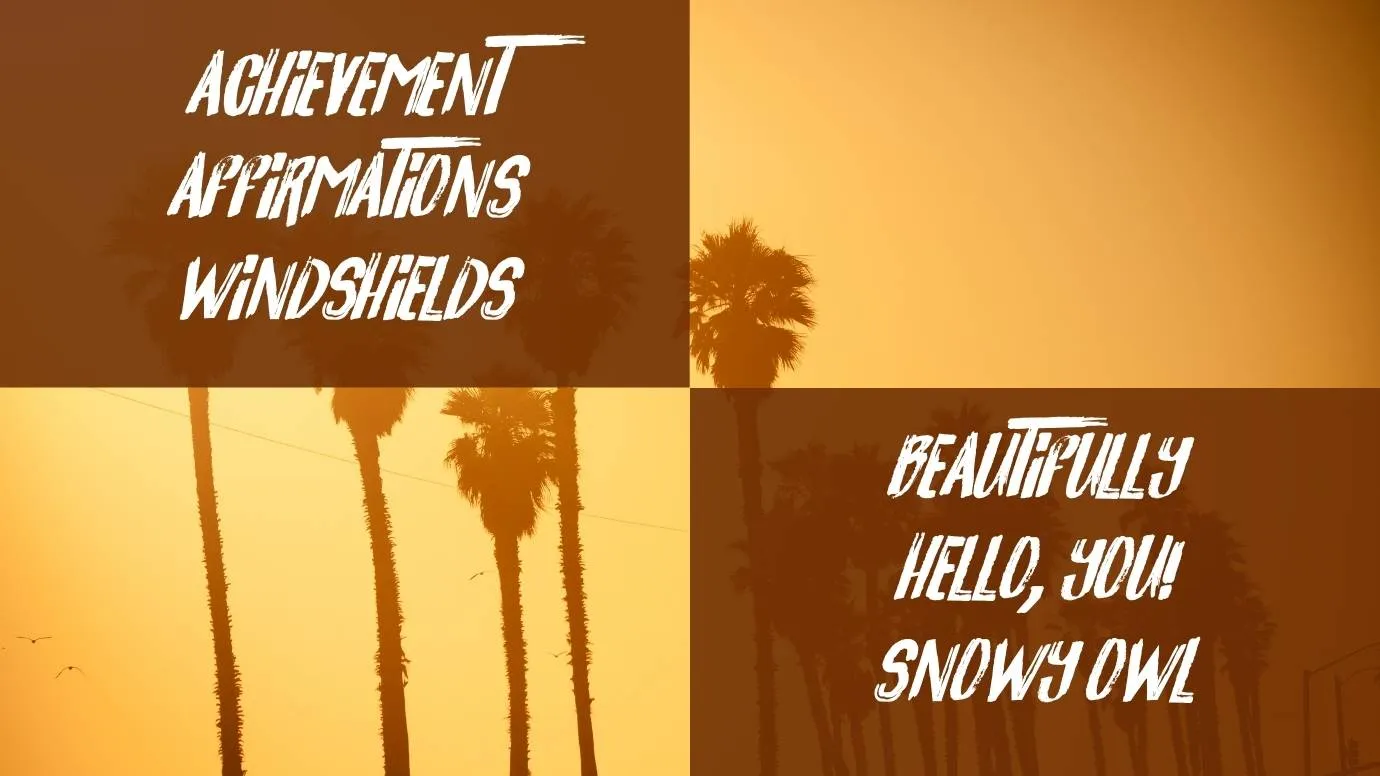
California Font is a member of the Script family, the style of this texture is brush and unique. This is a font that was designed in the US by Leonard Posavec between 1996-2004. It is available to download for free after purchasing the original design.
This font has quite unique punctuation, with brackets curving into shapes of stars or circles instead o being straight lines. There are numerous other features to this texture including different weights and weights, and capital letters in lower case as like Edo SZ Font.
This is a beautiful font that is very popular in the California area. This font guide will explain everything you need to know about this font, including how to use it!
This typeface is a type of font that has many uses, including online and print. It is very versatile and can be used for many purposes, such as writing headings, body paragraphs and even decorating images. This font has an interesting design that is well suited to headings.
Designer of California Font
This typeface is a group member of the Script texture family, the style is Brush, which is designed by Leonard Posavec.
This font family includes a single style of design, this regular and single style includes amazing glyphs, punctuation, letters, a set of characters with a wide range of language support.
| Name | California Font |
| Style | Brush |
| Designer |
Leonard Posavec
What is the California Font?
This font is a member of the Script family, the style of this texture is brush and unique. This is a font that was designed in the US by Leonard Posavec between 1996-2004.
Is California a Font?
Who designed the California Font?
This unique typeface is a group member of the display texture family, which has designed by Leonard Posavec – LeoSupply.co.